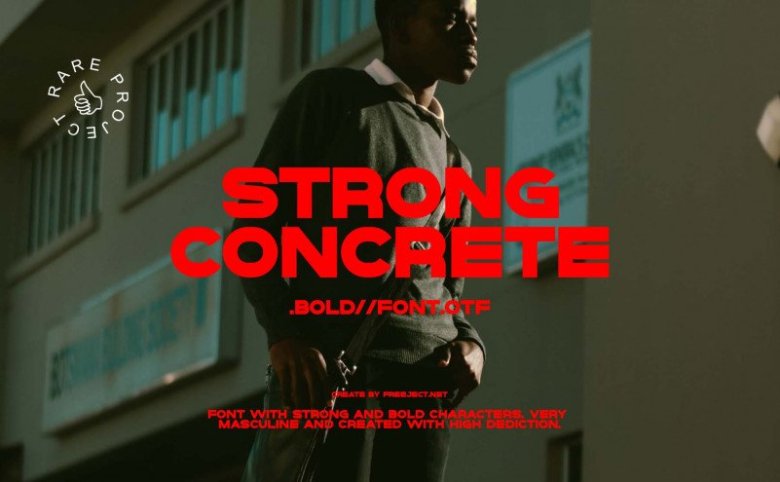
Strong Concrete Font
Strong Concrete Bold Font
Thank you for looking Strong Concrete Font. This is a bold and fat font for important titles or names. The strong character and charisma of this font will add value to your design. It’s a font that answers sharing questions about fonts suitable for most designs. Font anatomy is very sturdy and masculine. can be combined with lettering and calligraphy fonts.
Strong Concrete Bold Font